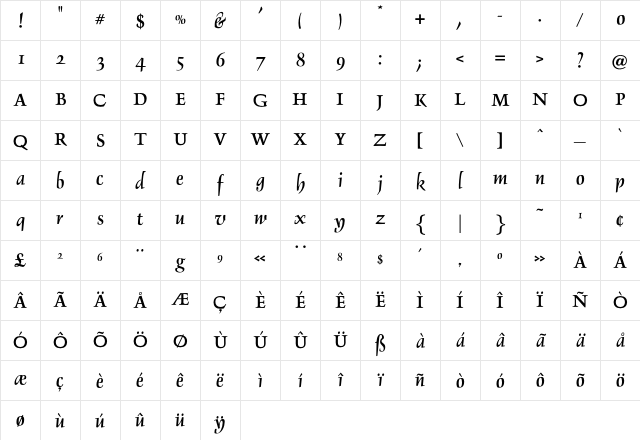
OPTIDelphin Two
Style: Two
Design Context for OPTIDelphin
OPTIDelphin is a composed and adaptable typeface that performs quietly and consistently across a wide range of design contexts.